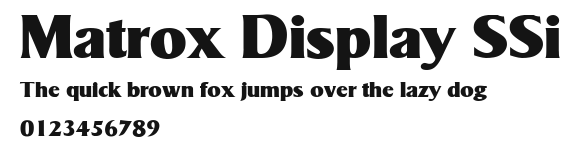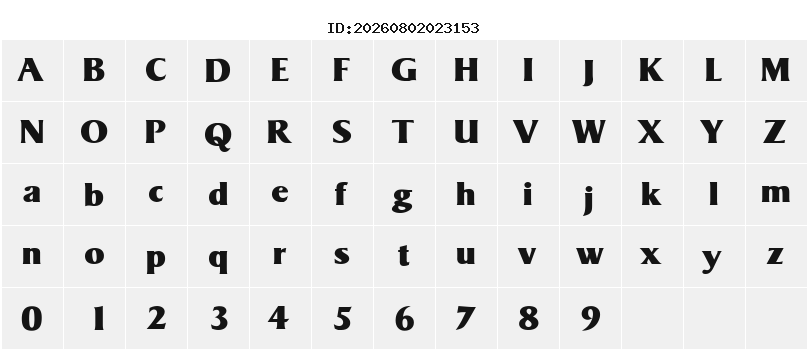
About Matrox Display SSi.ttf
Matrox Display SSi.ttf is a modern, elegant sans-serif font designed for ultimate readability and visual harmony. Perfect for branding, headlines, web design, and print materials.